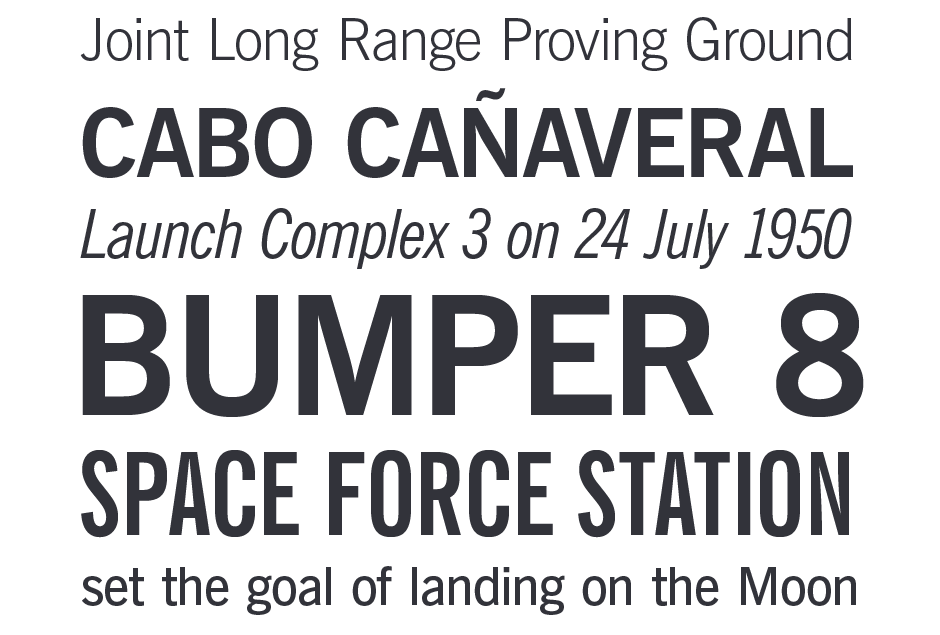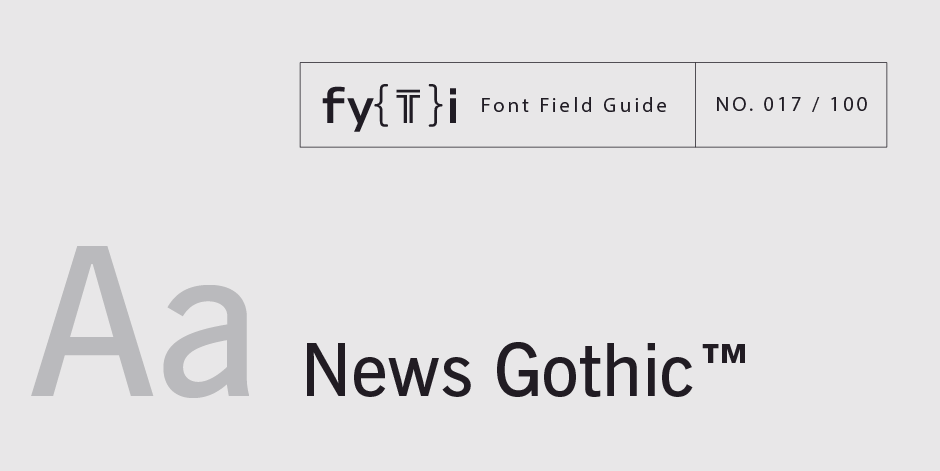
News Gothic Font Field Guide
Foundry: Bitstream   Designers: Morris Benton   Classification: Sans Serif Grotesque
Best Practices
Somewhat condensed and slightly angular, Bitstream News Gothic is an efficient user of space and holds up well on screen. The bold weight is not overly so, and condensed designs are well suited to environments where space is at a premium.
Family
Four roman weights and two condensed designs, each with an italic complement, in addition to two extra condensed designs.
Font Facts
This was the fourth “gothic” family from Benton. It was preceded by Globe Gothic, Alternate Gothic, and Franklin Gothic.
Roots
First designed by Morris Fuller Benton in 1908 for American Type Founders. Additional weights and proportions were added in the 1940s and 50s. Bitstream News Gothic is a digital updating of the original design.
Legibility
Two-storied a, bowl and loop g, open counters and apertures ensure legibility at small sizes in print and on small screens. The regular weight is legible and easy to read in reverse at small sizes..
How to spot News Gothic